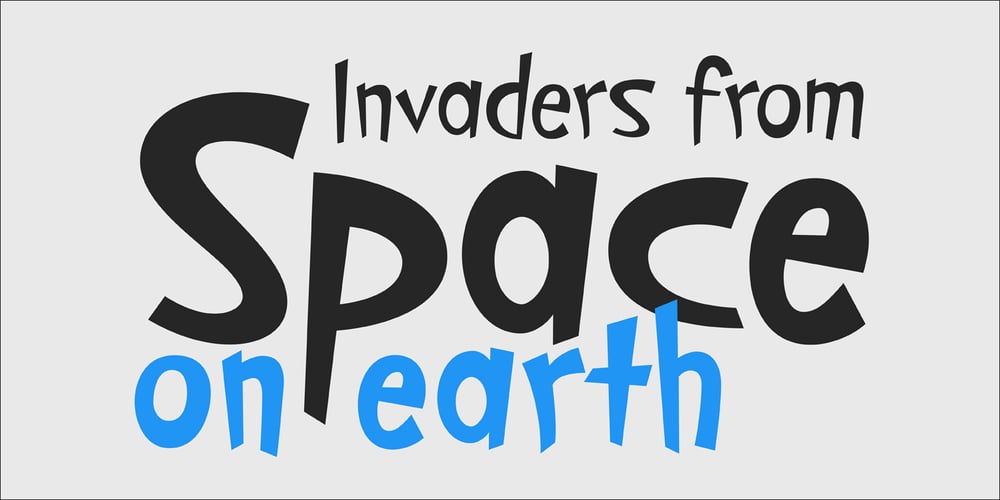
PF Cosmonut Pro Font Family was designed by Panos Vassiliou, Dimitris Foussekis and published by Parachute. PF Cosmonut Pro contains 2 styles and family package options. Spaced out and a bit nutty. This typeface revisits the futuristic atmosphere of the 50s and 60s cartoons and is complemented with an amazing, wacky and super cool series of 50 pictograms, designed by the master designer Dimitris Foussekis. This is a very popular informal typeface which was expanded recently into a ‘Pro’ version that includes Latin, Greek and Cyrillic.